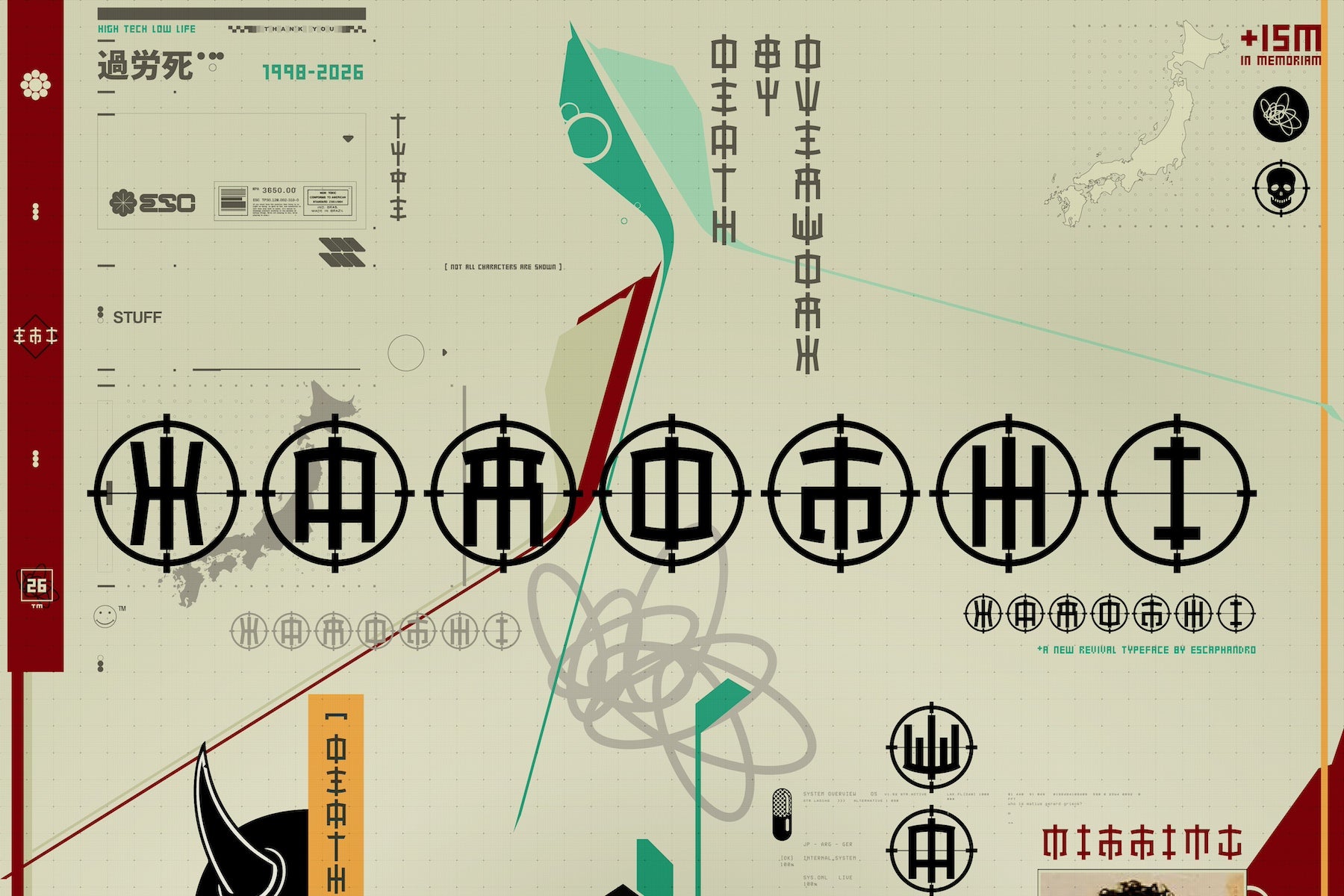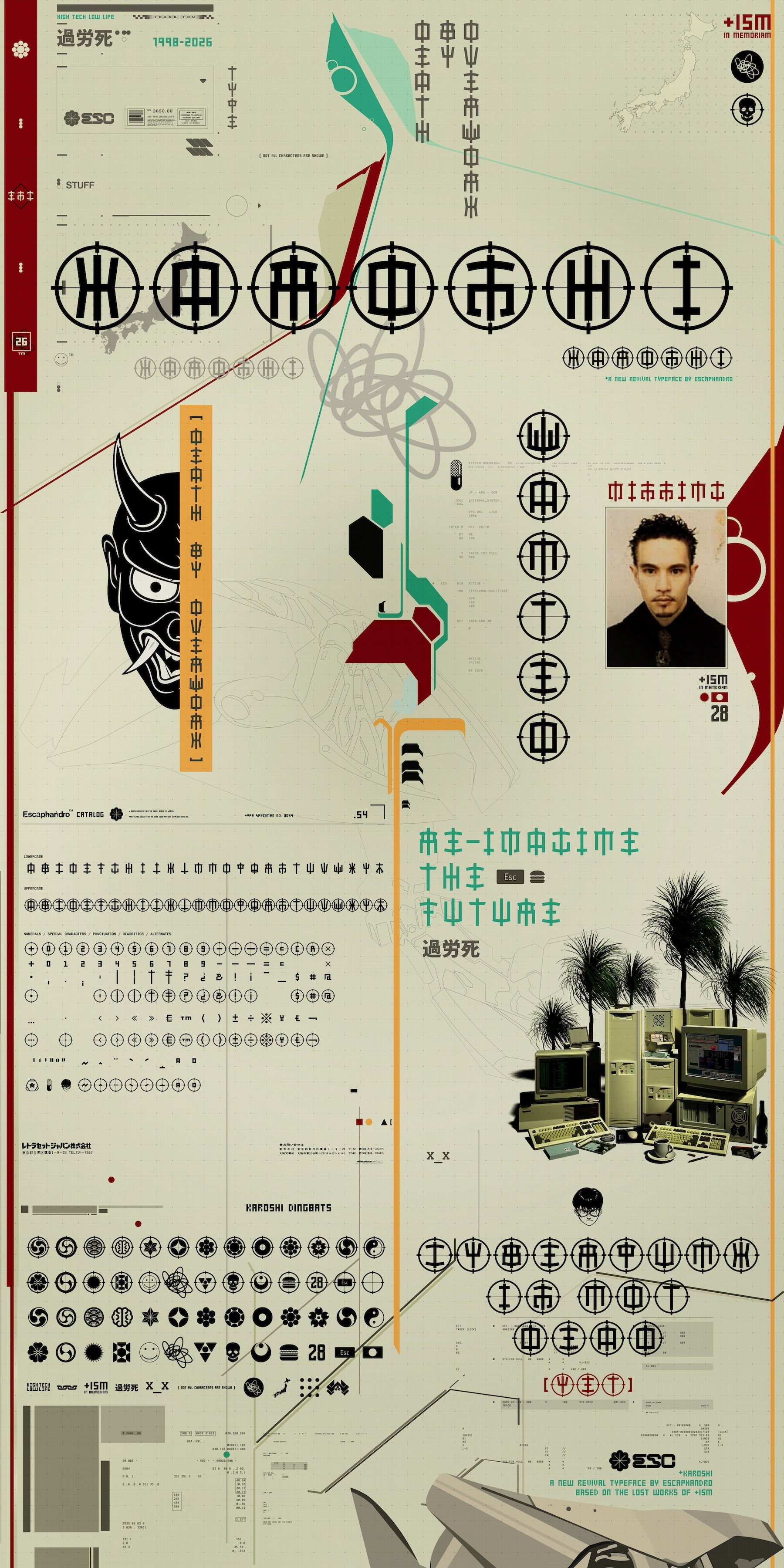
The KAROSHI journey began almost 30 years ago, rooted in admiration for the work of German/Argentinian designer Matius Gerardo Grieck, aka +ISM. His graphic and type design left a clear mark in the early days of digital type.
That era favored bold concepts and format experiments—an intense, inspiring landscape later flattened by social media and template-based design. KAROSHI draws from Japanese culture and the unsettling idea of “death by overwork” (not nostalgic at all). The project started from a rescued folder of references from 1998/1999, when standard formats barely existed and early WWW experiments like +ISM’s ran wild.
With little to no recent information available about the designer or his fonts, further research reached a dead end. Learning KAROSHI was not commercially available set off an unusual question: how do you revive an already digital typeface? Rather than follow a traditional revival path, this work honors an early influence by updating an experiment into a full contemporary typeface.
Starting from only a few letters and low-res images, KAROSHI became a personal project shaped by cyberpunk references and expanded into a larger, functional character set. A complementary dingbat font followed, sparked by research that proved genuinely fun. Recommended for type and lettering experiments, techno-flared logos, and cyber titling—Y2K aesthetics in all its glory.